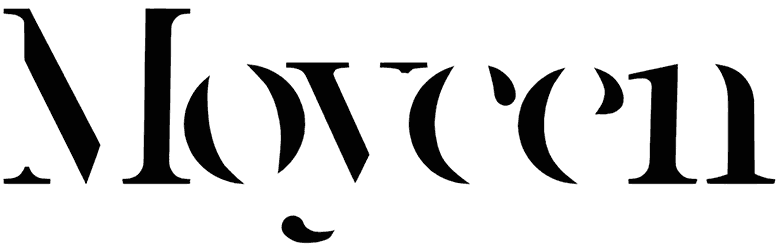
Moycen Font
For a second, look at this serif font and see how many classy and stylish business cards, fashion logos, and wedding invitations can be created with only one font. Moycen is not a simple serif; for a trendier look, a specific part of all the letters is faded.
The only downside of Moycen is its lack of numbers, but its collection doesn’t leave you empty-handed, and you find both uppercase and lowercase, plus punctuation marks.